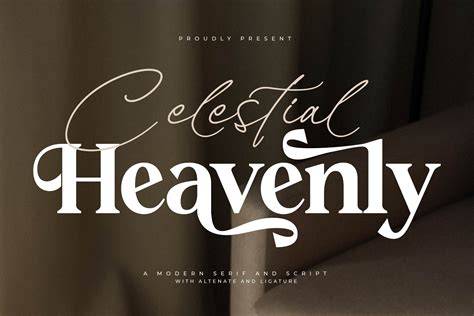
Heavenly Fonts – A Guide To Choosing The Right Font For Your Project
What is a Heavenly Font
A heavenly font is one that is designed to evoke a sense of beauty and serenity. It is an aesthetically pleasing typeface that can be used to enhance the look and feel of any project. These fonts can be used in a variety of projects, ranging from websites to print publications. There are many different types of heavenly fonts, each with its own unique style and personality. Whether you are looking for a classic serif font or a modern sans serif font, there is sure to be a heavenly font that fits your needs.
Choosing the Right Heavenly Font for Your Project
When it comes to choosing the right heavenly font for your project, there are a few important things to consider. First, you should think about the overall look and feel of your project. Are you trying to create a modern, sleek look? Or are you going for a more vintage, classic feel? Knowing the look and feel you are trying to create will help you narrow down your choices and make the selection process easier.
Second, you should think about the message or feeling you are trying to convey with your font. Is the message more serious or lighthearted? Does it need to be formal or informal? By asking yourself these questions, you can better determine which heavenly font will work best for your project.
Third, you should think about the readability of the font. Does it have a high x-height, which makes it easier to read? Or does it have a low x-height, which makes it harder to read? You should also consider whether the font has a high contrast or low contrast. High contrast fonts tend to be easier to read, while low contrast fonts can be harder to read.
Common Heavenly Fonts
There are many different types of heavenly fonts available, each with its own unique style and personality. Some of the most popular heavenly fonts include:
- Garamond – A classic serif font that has been around since the 1500s.
- Futura – A modern sans-serif font that was designed in the 1920s.
- Bodoni – A classic serif font that was designed in the 1790s.
- Helvetica – A modern sans-serif font that was designed in the 1950s.
- Gill Sans – A modern sans-serif font that was designed in the 1930s.
Heavenly fonts are a great way to add beauty and serenity to any project. From websites to print publications, the right font can help make your project stand out. When choosing a heavenly font, it is important to consider the overall look and feel of your project, the message or feeling you are trying to convey, and the readability of the font. There are many different types of heavenly fonts available, so it is important to choose one that fits your needs. With the right heavenly font, you can create a beautiful and serene design for your project.